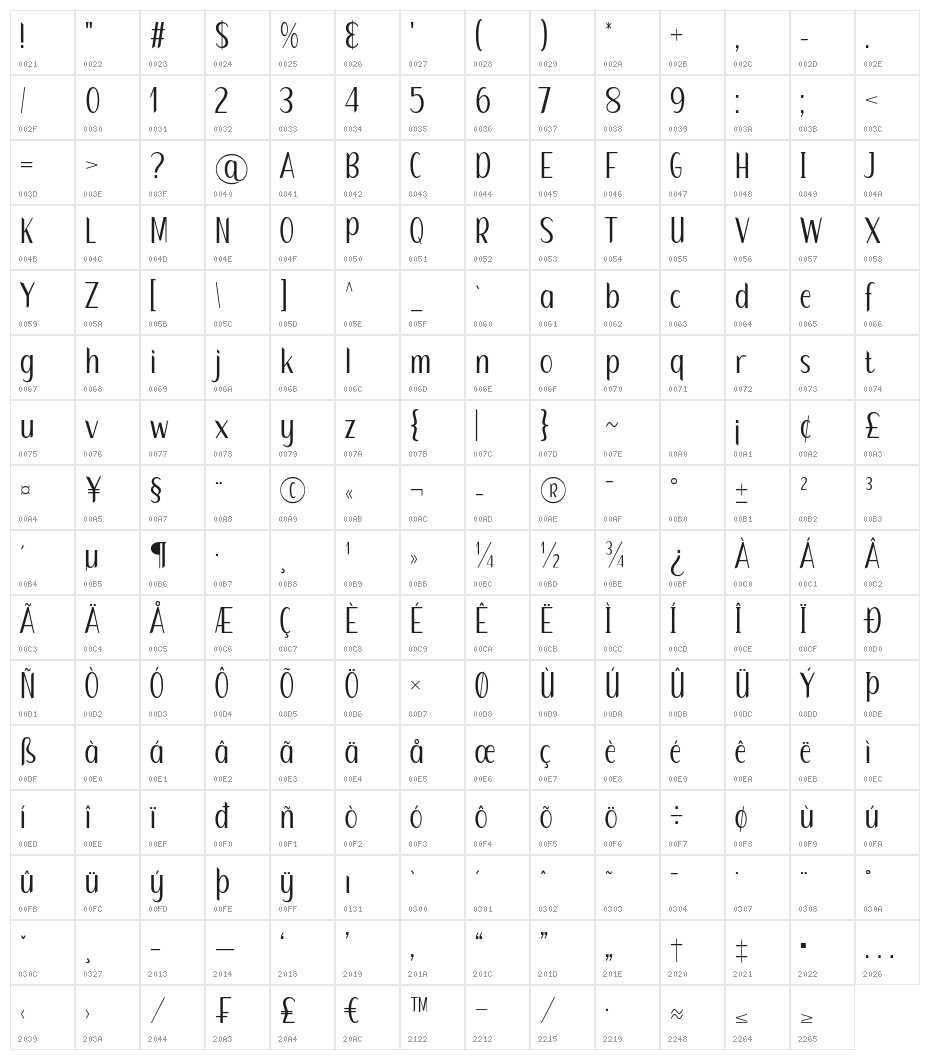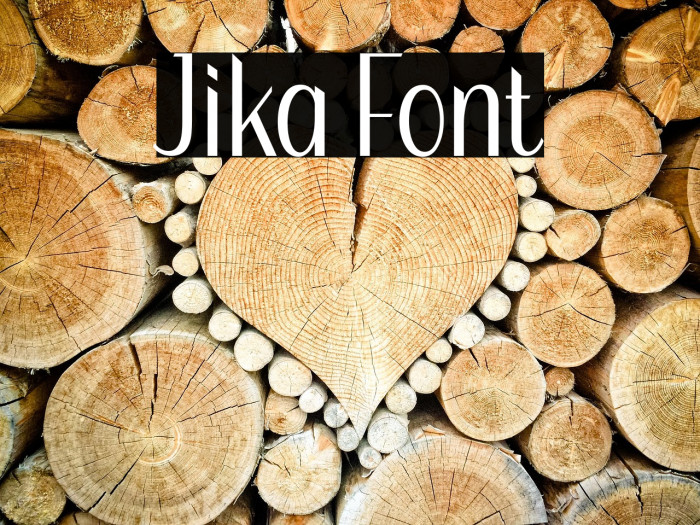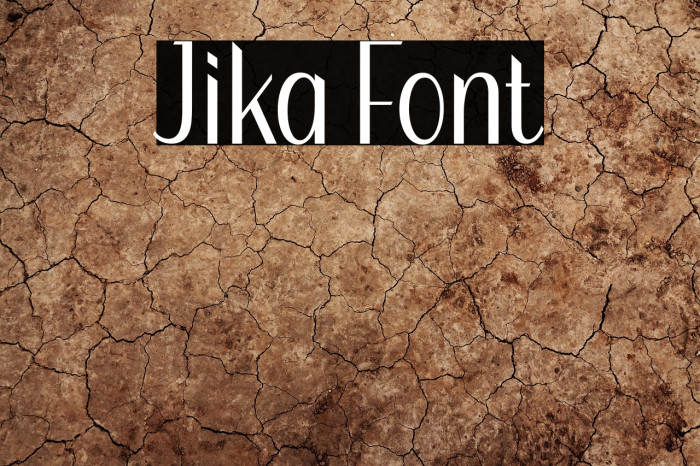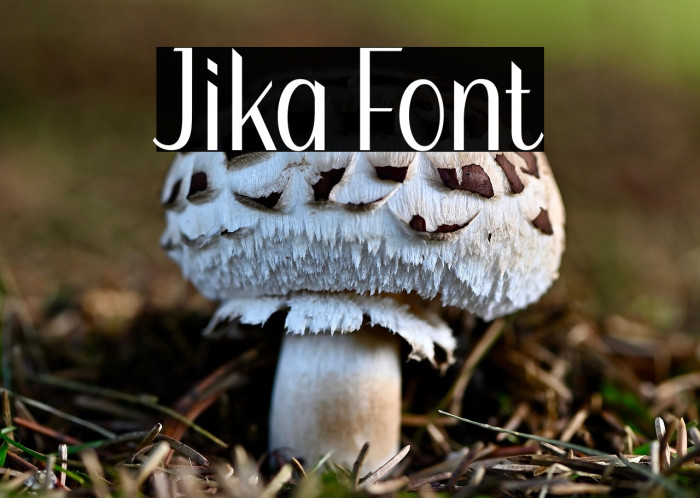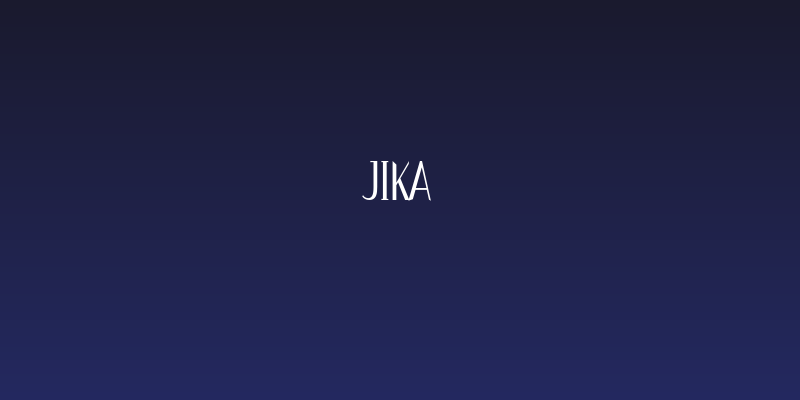
Jika Font
Jika Description
This font features a modern and stylish design with a unique blend of sharp and smooth elements. The uppercase letters are tall and narrow, with distinct angular cuts that give them a sleek appearance. The lowercase letters maintain a consistent height and are slightly more rounded, providing a nice contrast to the uppercase. The numerals are clear and easy to read, with a uniform width that complements the overall design. Special characters are well-integrated, maintaining the font's cohesive look. This font's distinct style makes it suitable for a variety of creative applications.
| Proposed Projects | Ideal for branding, posters, and editorial design where a modern and distinctive look is desired. |